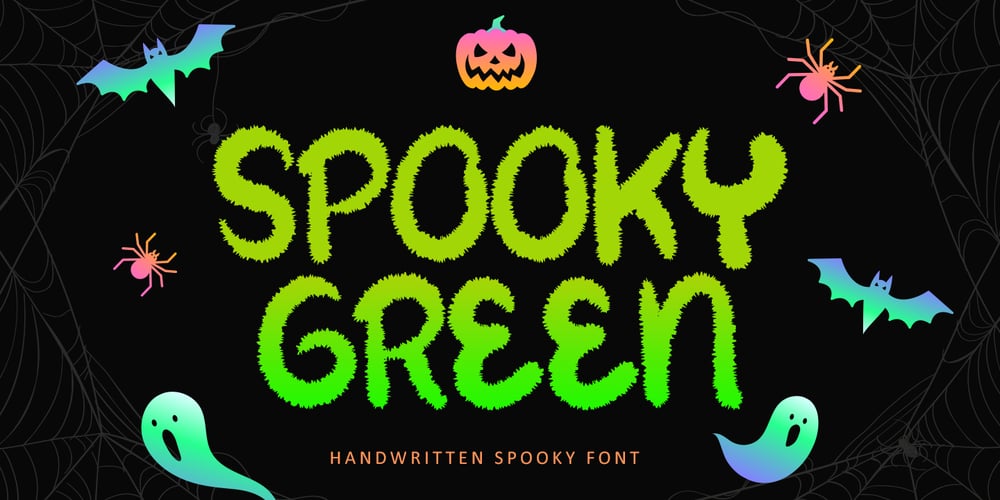
Spooky Green
Spooky Green Font Family was designed by Bayu Suwirya and published by Illushvara. Spooky Green contains 1 styles and family package options. Spooky Green is an incredibly unique and quirky display font. Its friendly feel makes this font incredibly versatile, fitting a wide range of contexts. Add it to your creative ideas and notice how it makes them stand out!